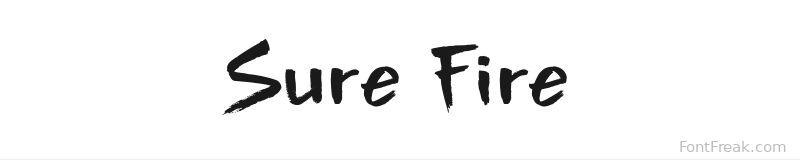
Sure Fire
The Sure Fire font by BLKBK Fonts is a striking display typeface that captures attention with its bold, expressive style. Designed as a freeware option, this font offers a unique blend of artistic flair and versatility. Its visual characteristics include a dynamic stroke weight that varies throughout the letters, creating an energetic and modern aesthetic. The slightly irregular edges add a handcrafted feel, making each character appear unique and lively. The spacing is well-balanced, ensuring readability while maintaining an artistic edge.
Sure Fire is particularly well-suited for a variety of creative applications. It shines in environments such as wedding invitations, where its artistic flair can enhance the romantic vibe. Additionally, it is an excellent choice for movie posters, providing an eye-catching element that draws viewers in. Restaurant menus can benefit from its bold presence, helping to highlight special dishes or events. Furthermore, this font is ideal for social media graphics, allowing content creators to make a memorable impact online.
Graphic designers, small business owners, and content creators will find the Sure Fire font particularly appealing. Its eye-catching design can elevate branding efforts and enhance visual storytelling. The versatility of this font makes it a valuable asset in any designer's toolkit, allowing for creative expression across various projects.
What sets the Sure Fire font apart is its ability to combine artistic individuality with practical usability. Its bold strokes and unique character shapes create an engaging visual narrative that captivates audiences, making it a standout choice for anyone looking to make a strong impression. For those interested in incorporating this distinctive typeface into their designs, the Sure Fire font free download offers an accessible opportunity to explore its creative potential.